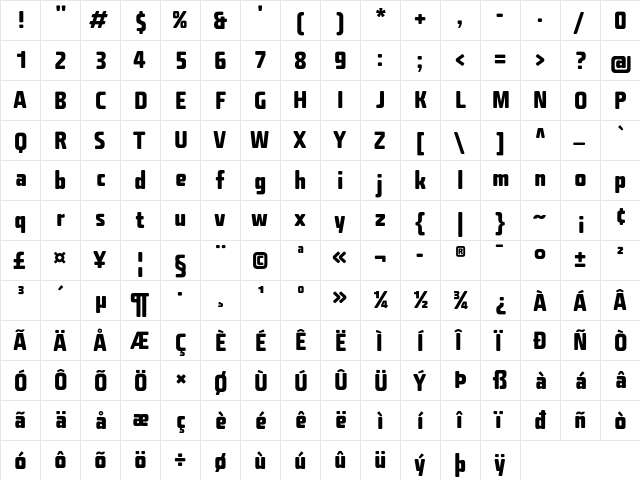
Fishmonger CB Plain
| Foundry | Tomas Brousil |
Design Context for Fishmonger CB Typeface
Fishmonger CB offers clean, dependable letterforms without strong stylistic allegiance, making it a practical choice for designers who need flexibility.
Pro Tip: Use Fishmonger CB in both headline and body roles to test its range before committing to a single application.